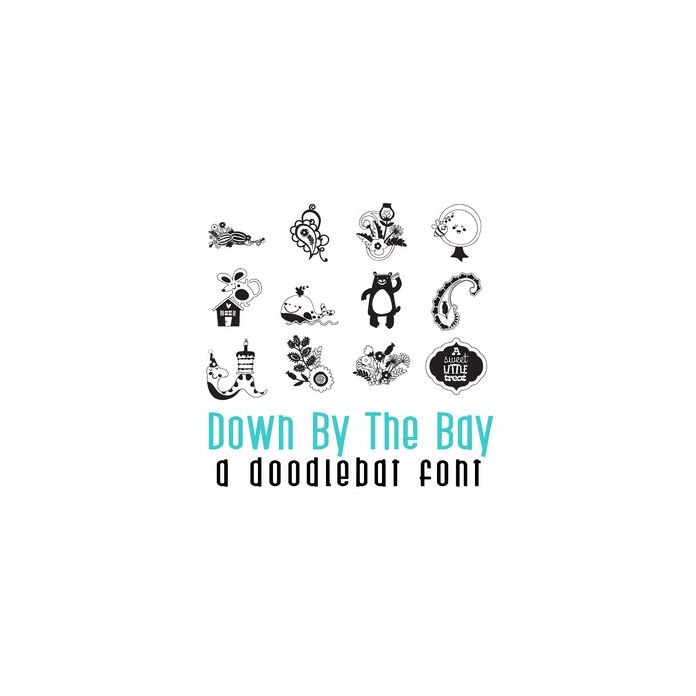
This fun doodle style doodlebat font features 26 spring floral and paisley images with cute animals ready to party. Perfect for cards, crafts, gifts, decor, scrap book pages, planner stickers and more!